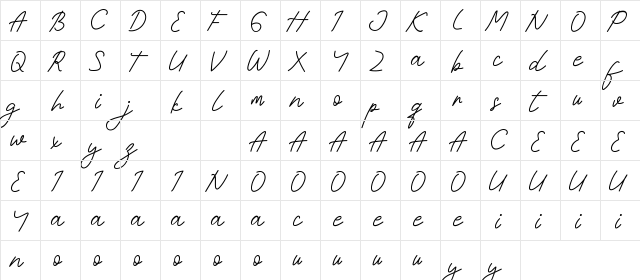
Neitherly Demo Script Regular
| Foundry | Edric Studio |
| Designer | Widiyanti & Suci Anita |
Design Context for Neitherly Demo Script Typeface
Neitherly Demo Script flows with the natural rhythm of handwritten lettering, making it ideal for designs that call for warmth and personal expression.